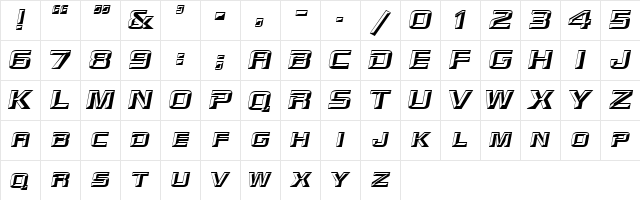
3 Lori Slant DNA Regular
Design Context for 3 Lori Slant DNA
3 Lori Slant DNA is a composed and adaptable typeface that performs quietly and consistently across a wide range of design contexts.